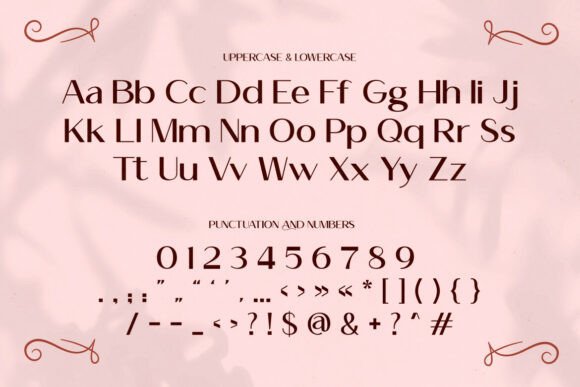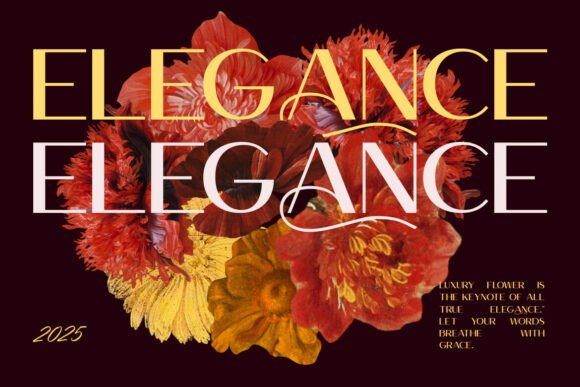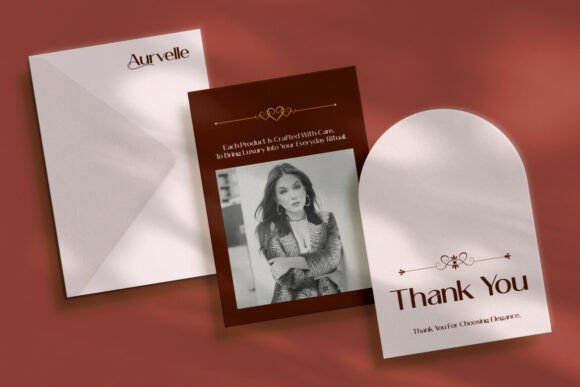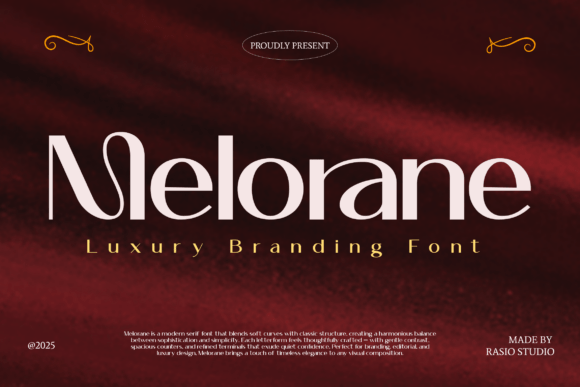
Introduction to Melorane Font
Melorane is a refined modern serif typeface designed with graceful curves and elegant letterforms.
Melorane is relevant for creative projects that require refined and sophisticated typography The elegant structure and smooth curves make it suitable for luxury branding, editorial layouts, fashion magazines, premium packaging, and promotional visuals where polished typography enhances visual identity and professional presentation.
Key Features of Melorane Font